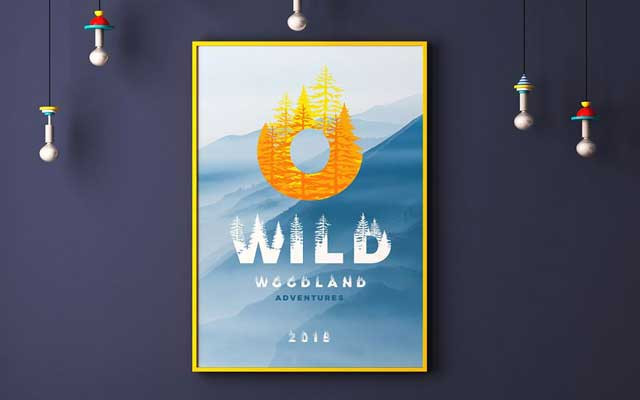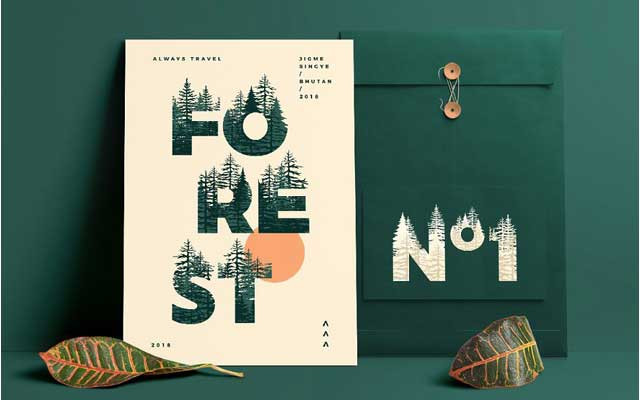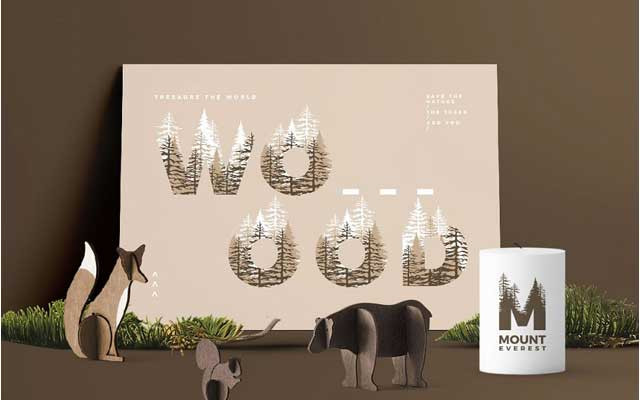
Forests Layered Font
Forests Layered Font Design By Zeppelin Graphics. Forests are a double exposure font that consists of 3 layers and it includes letters and numerals. It is a display type and works especially great on prints.